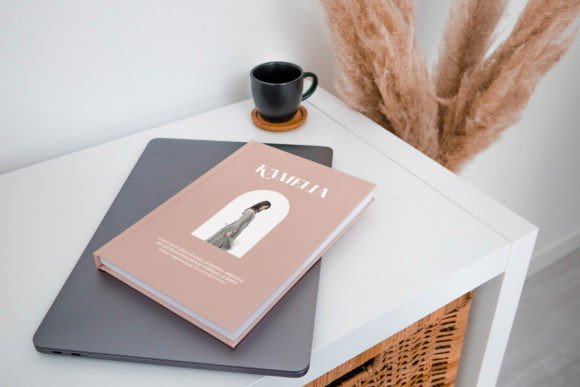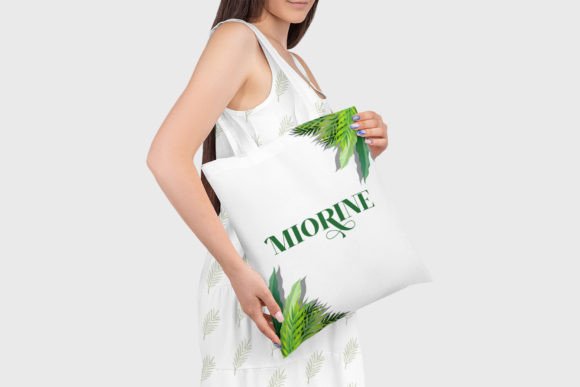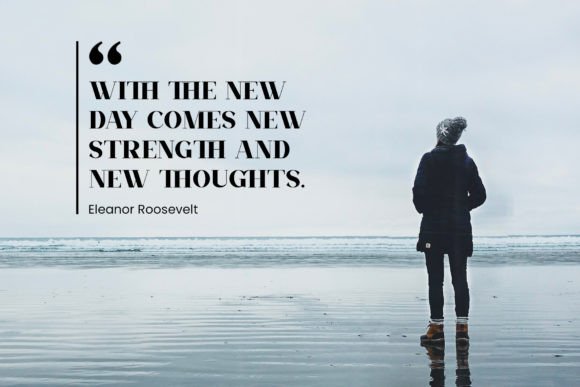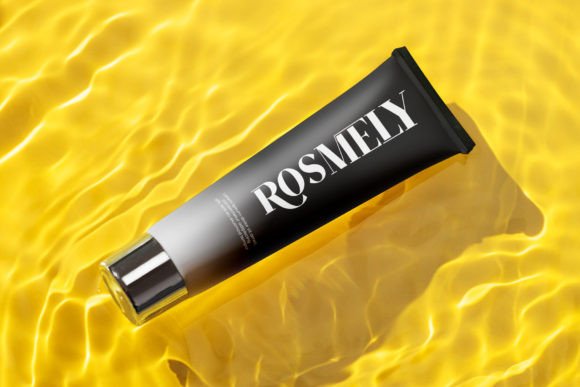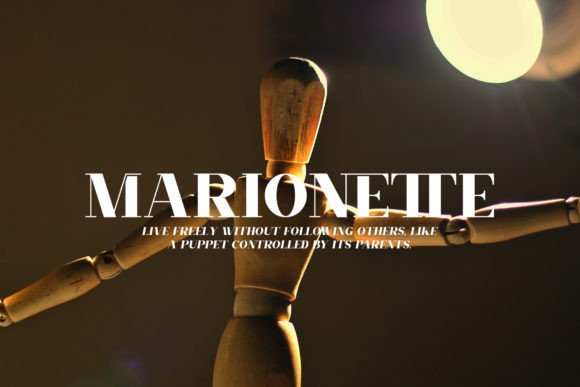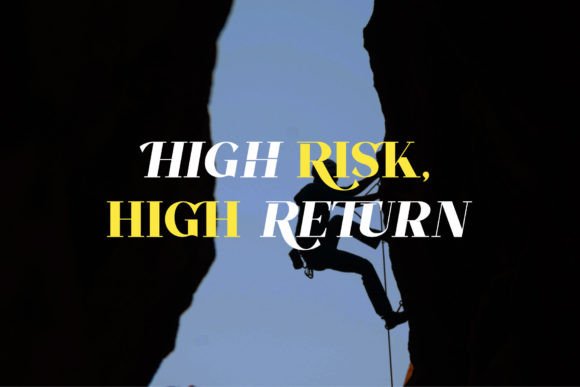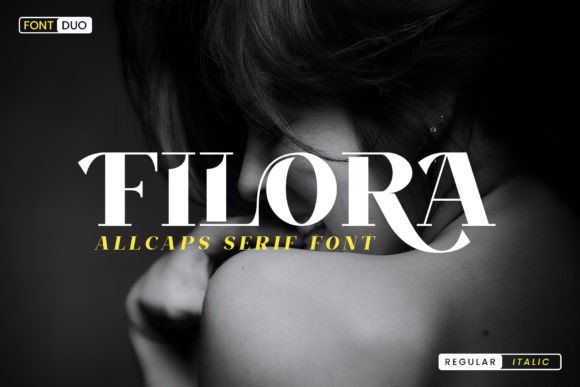
Introducing Filora Font: Elevate Your Designs with Elegance and Sophistication
In the world of typography, a font can make or break a design. For designers and crafters looking for a typeface that exudes elegance and sophistication, Filora Font is an excellent choice. Specifically, Filora Serif is a stunning combined typeface that offers both regular and italic serif options, making it perfect for a wide range of design projects.
What Makes Filora Serif Stand Out?
Filora Serif boasts a beautiful character that is both elegant and smooth. Its subtle serif design makes it an ideal choice for projects that require a touch of sophistication. Whether you’re working on invitation card designs, company logos, movie titles, or book titles, Filora Serif fits perfectly and elevates your design to the next level.
One of the key features of Filora Serif is its stylish alternations and ligatures. These typographic elements add a level of refinement and luxury to your designs, making them perfect for high-end branding, movie titles, and other premium projects. The font’s versatility is further enhanced by its PUA encoding, which allows easy access to all the amazing glyphs and ligatures.
Filora Serif’s adaptability makes it an excellent choice for a variety of design projects. Here are some examples of how you can use this elegant font:
- Invitation Card Designs: Add a touch of elegance to your invitations with Filora Serif’s smooth and refined lines.
- Company Logos: Create a lasting impression with a logo that exudes sophistication and professionalism.
- Movie Titles and Names: Give your movie titles a luxurious feel with Filora Serif’s stylish alternations and ligatures.
- Business Cards: Stand out from the crowd with a business card that features a font that is both elegant and easy to read.
- Book Titles and Brand Names: Use Filora Serif to add a touch of sophistication to your book titles and brand names.
Why Choose Filora Serif?
Filora Serif offers several benefits that make it an attractive choice for designers and crafters:
- Elegant and Smooth Design: Filora Serif’s subtle serif design makes it perfect for projects that require a touch of elegance.
- Stylish Alternations and Ligatures: Add a level of refinement and luxury to your designs with Filora Serif’s stylish alternations and ligatures.
- Versatile: Suitable for a wide range of design projects, from invitation cards to movie titles and book titles.
Filora Serif is an exceptional font that offers elegance, sophistication, and versatility. Its subtle serif design, stylish alternations, and ligatures make it perfect for designers and crafters looking to elevate their designs. With its PUA encoding and wide range of applications, Filora Serif is an excellent addition to any designer’s toolkit. Whether you’re working on a high-end branding project or a creative design, Filora Serif is sure to impress.